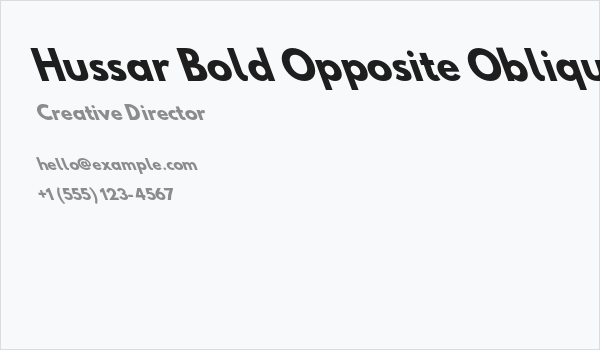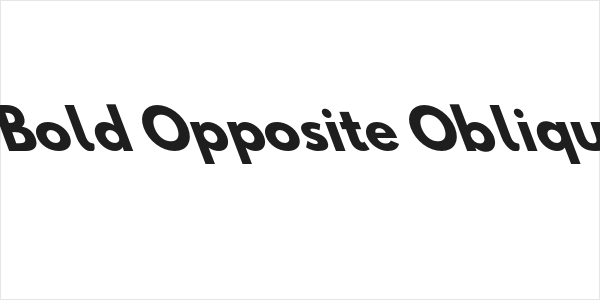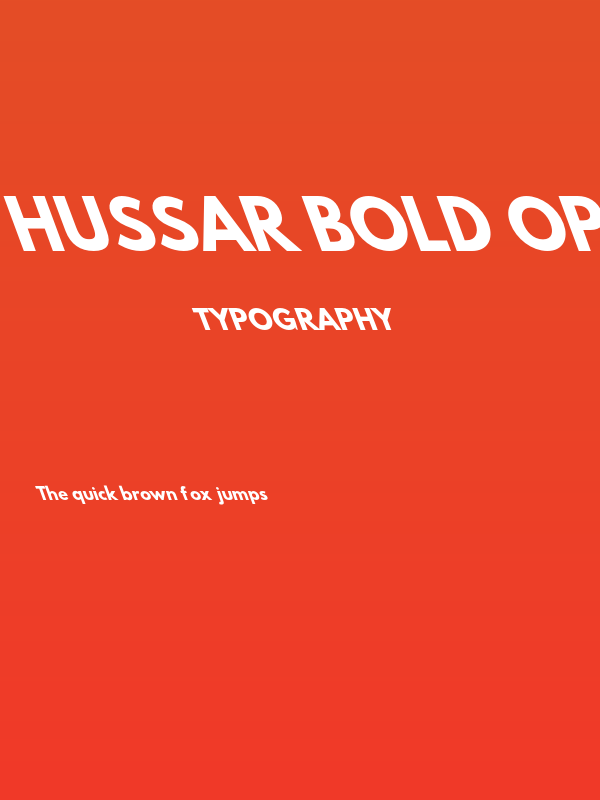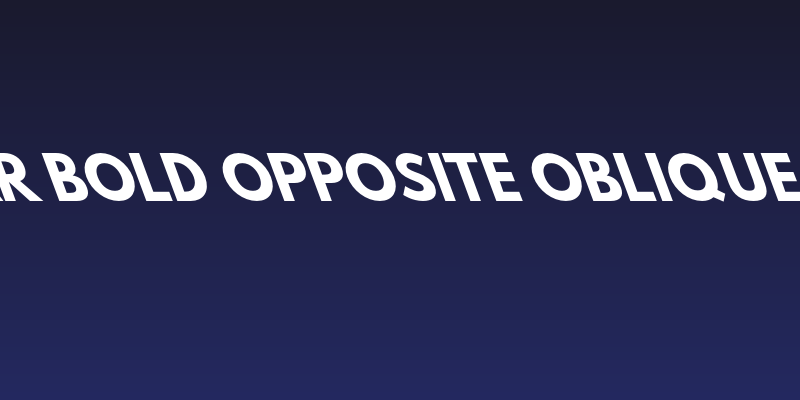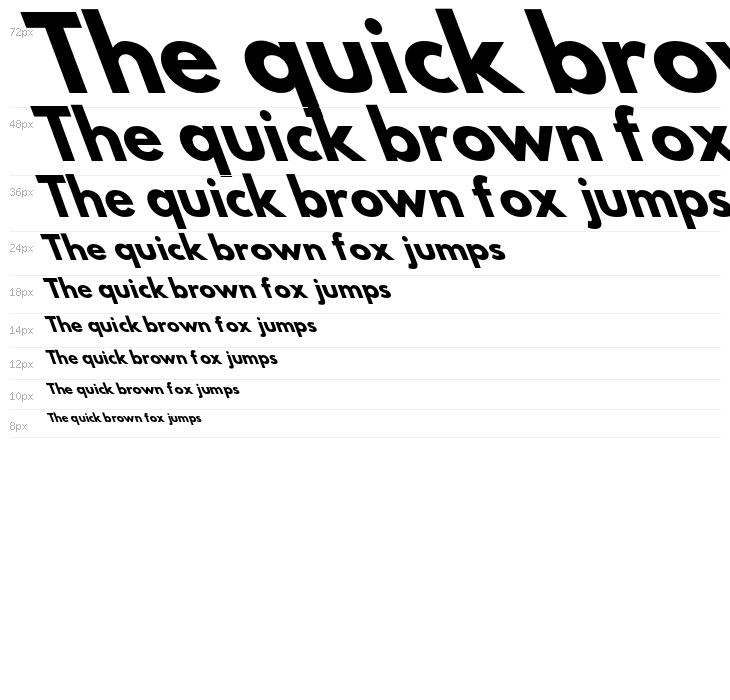
Hussar Bold Opposite Oblique Four Font
Hussar Bold Opposite Oblique Four Description
This font exhibits a bold and dynamic style with a distinct oblique slant, giving it a sense of movement and energy. The characters are thick and robust, providing a strong visual impact. The uppercase and lowercase letters maintain a consistent weight, ensuring readability while adding a touch of modern flair. The numerals and special characters are equally bold, complementing the overall design. The font's angular cuts and sharp edges contribute to its contemporary and assertive appearance, making it suitable for attention-grabbing headlines and impactful designs.